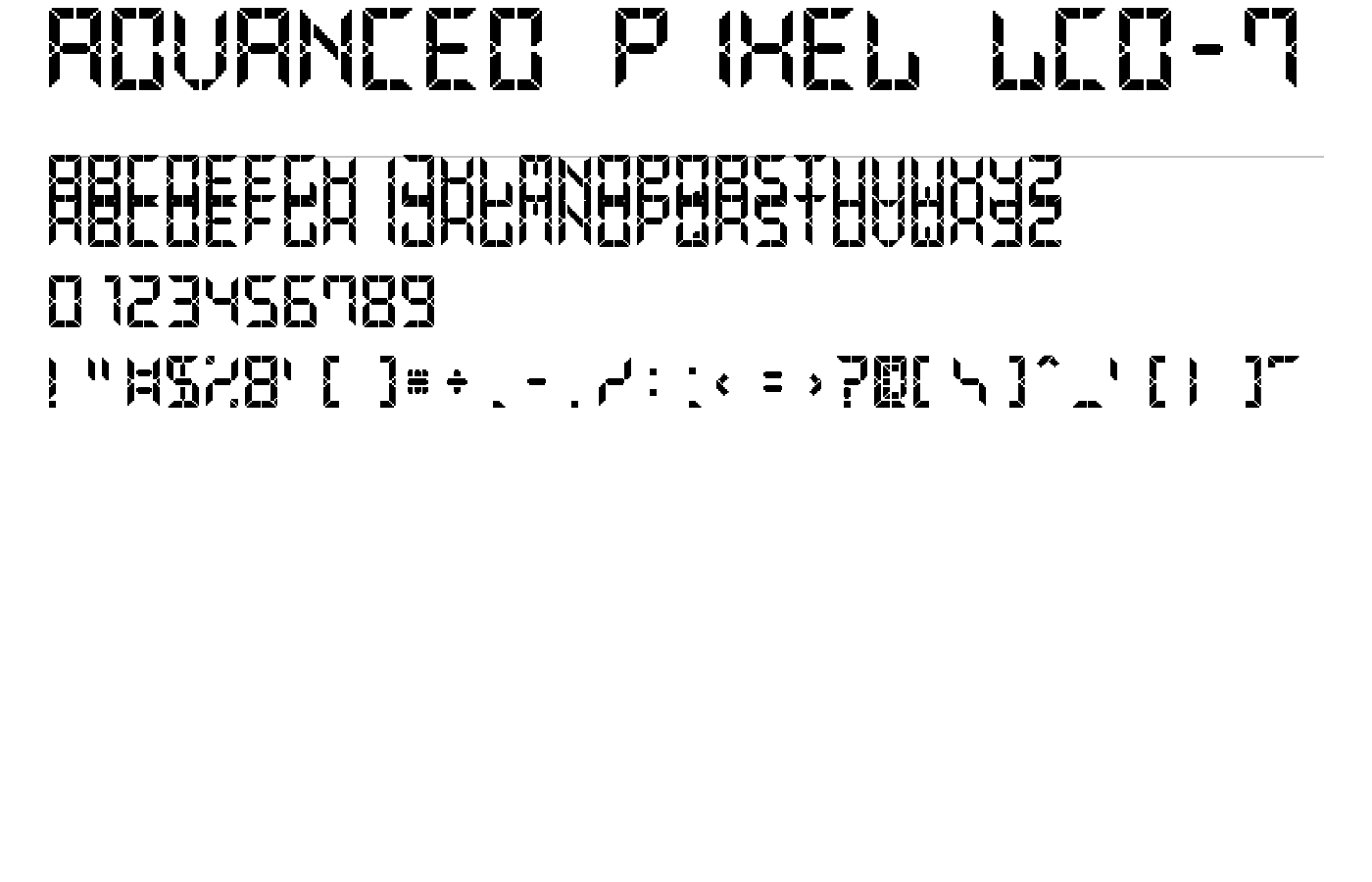
Advanced Pixel LCD-7 is a distinctive pixelated sans serif font that captures a retro digital aesthetic reminiscent of classic LCD displays. Its narrow, highly geometric letterforms with a strong grid-based structure give it a techy, futuristic vibe well suited for digital interfaces, gaming, and tech branding. This font works best for headlines, logos, and on-screen text where a nostalgic yet modern pixel style is desired.
Advanced Pixel LCD-7 Font
About Advanced Pixel LCD-7 Font